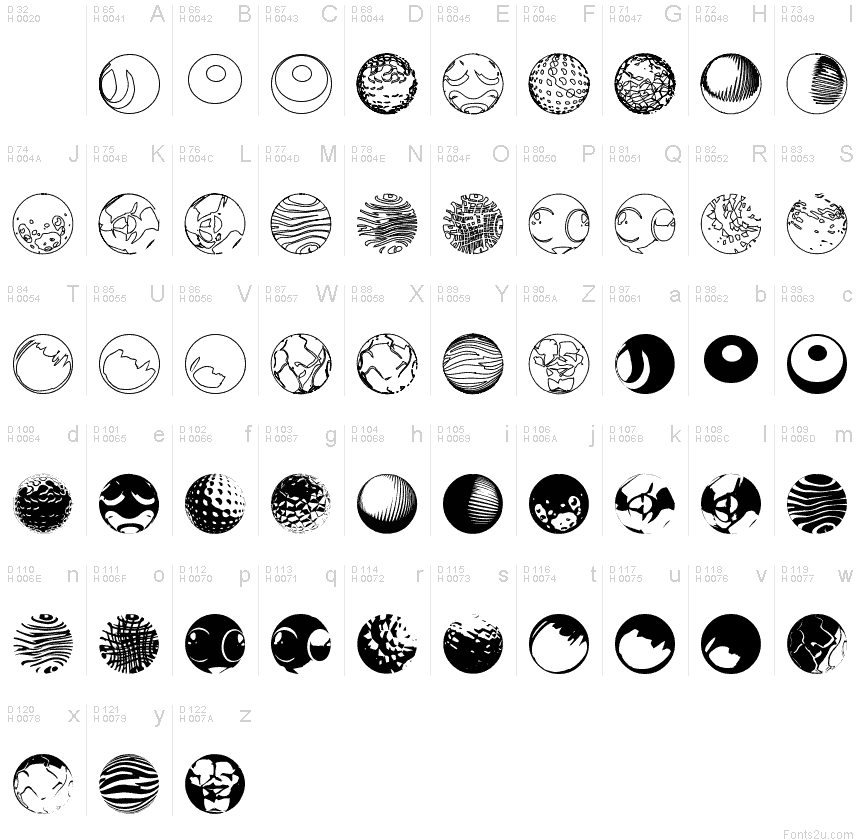
52 Sphereoids
52 Sphereoids from OMEGA Font Labs is a captivating dingbat font that celebrates the power of geometric abstraction. Its array of spherical symbols, each with a distinct pattern or texture, evokes a sense of kinetic energy and playful experimentation.
The minimalist black-and-white palette lends the font a timeless, versatile quality, making it well-suited for a wide range of design applications, from print media to digital interfaces. Its unique visual language can add a touch of modern sophistication or a whimsical flair, depending on the context.
This font invites designers to explore the expressive potential of simple shapes and patterns, opening up new avenues for visually engaging communication.
The minimalist black-and-white palette lends the font a timeless, versatile quality, making it well-suited for a wide range of design applications, from print media to digital interfaces. Its unique visual language can add a touch of modern sophistication or a whimsical flair, depending on the context.
This font invites designers to explore the expressive potential of simple shapes and patterns, opening up new avenues for visually engaging communication.